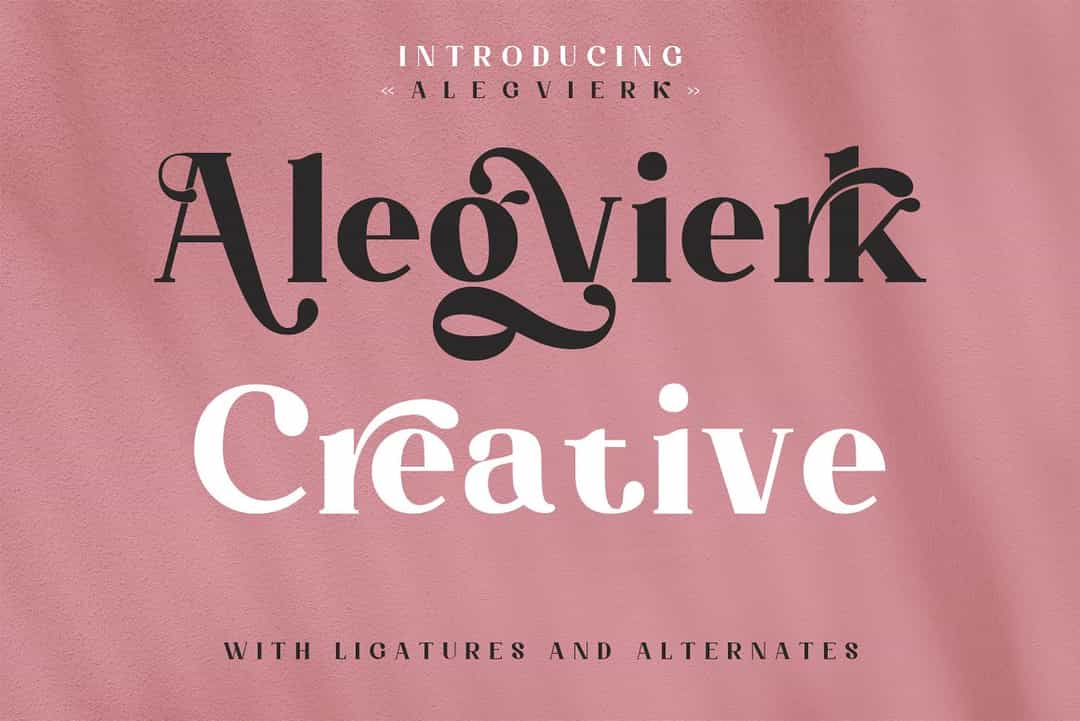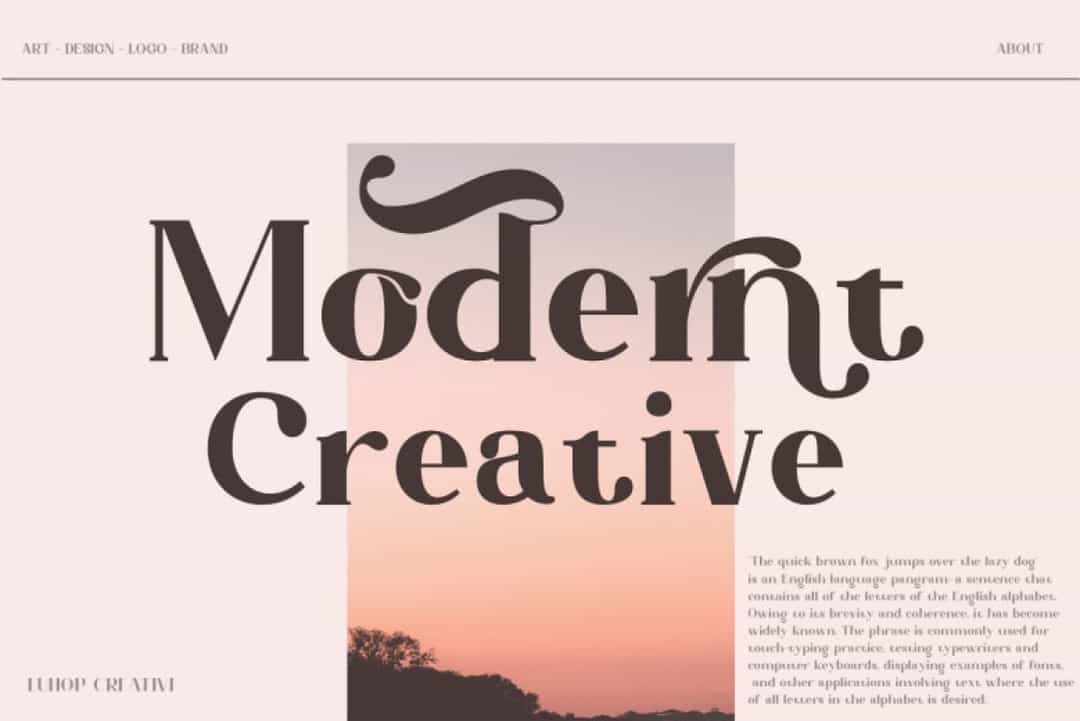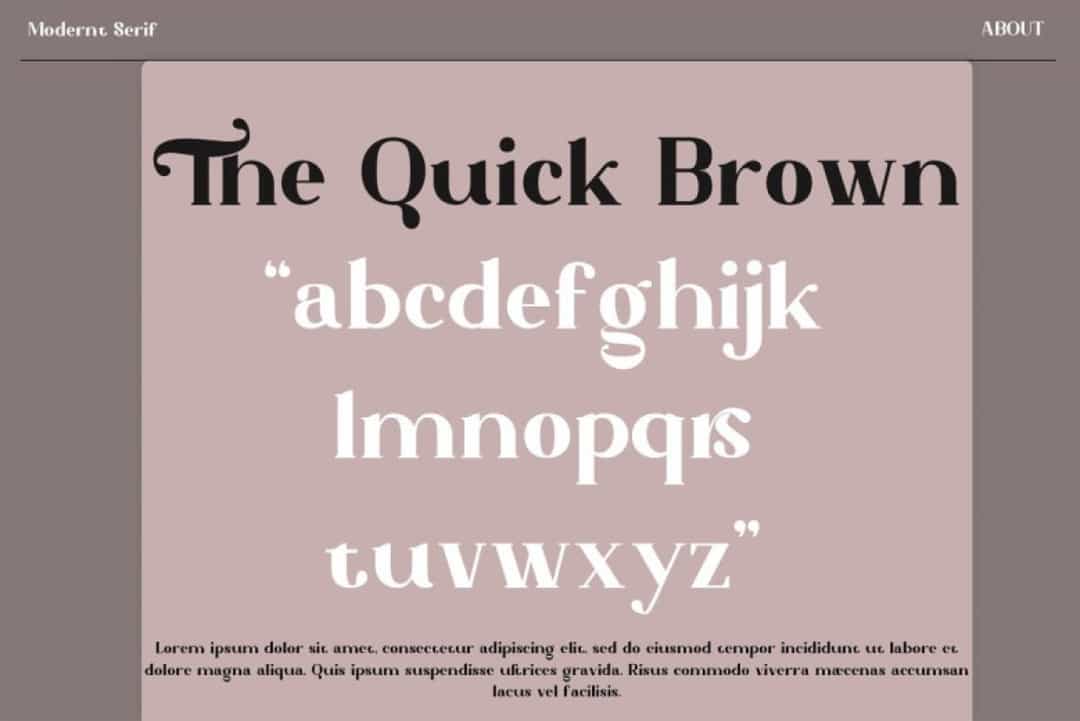
LuhopCreative has designed Alegvierk as a sophisticated, elegant and innovative serif font. This font includes uppercase letters, lowercase letters, numerals and symbols and can be used for crafting projects such as cards, labels or branding purposes.